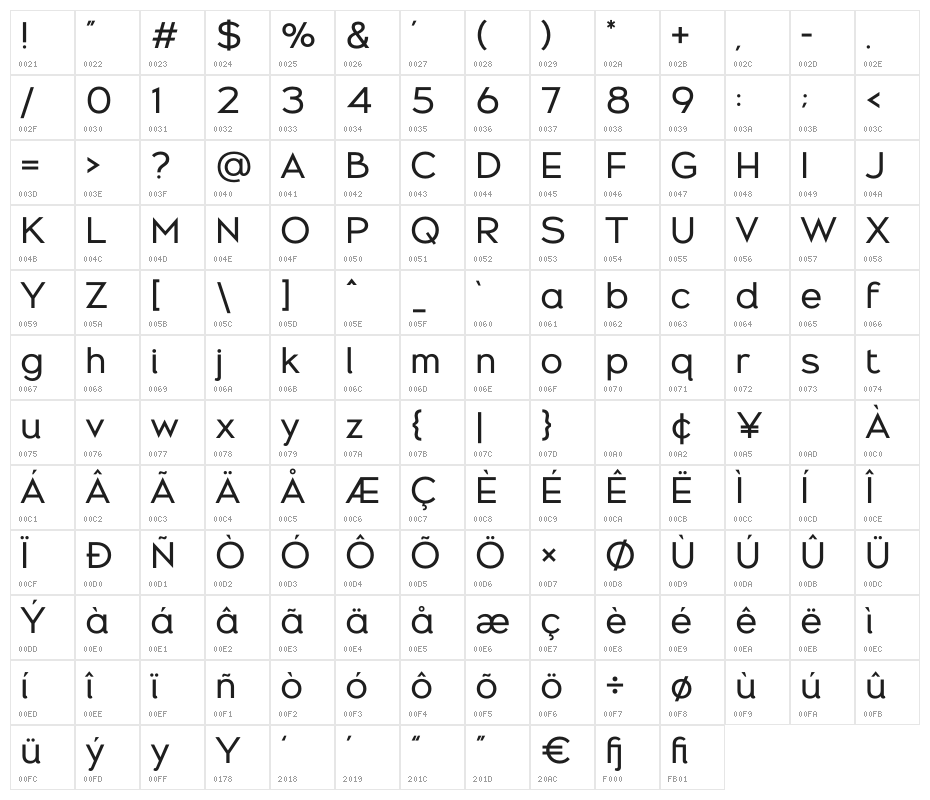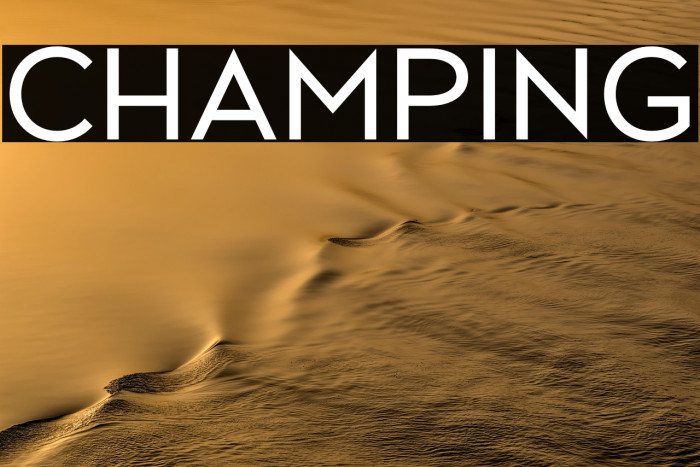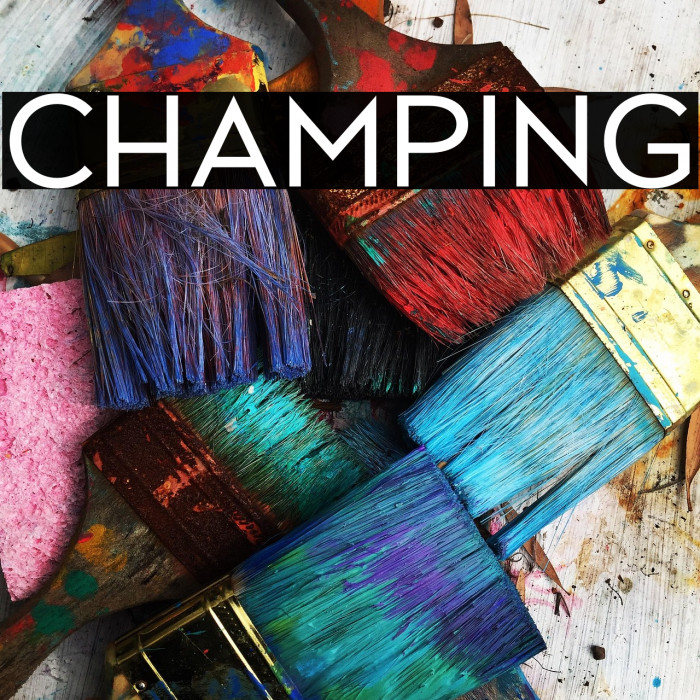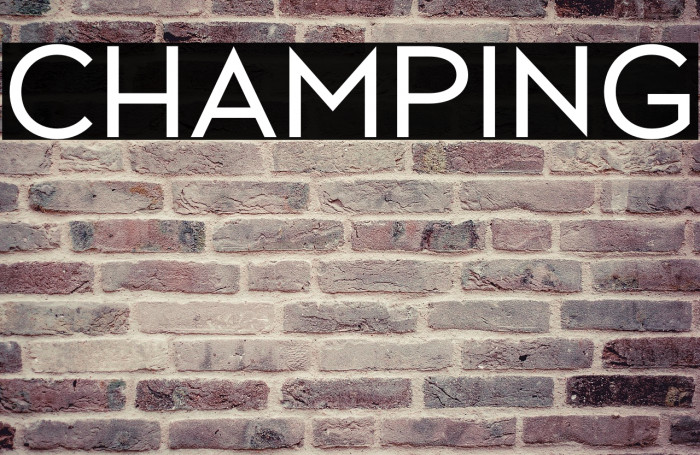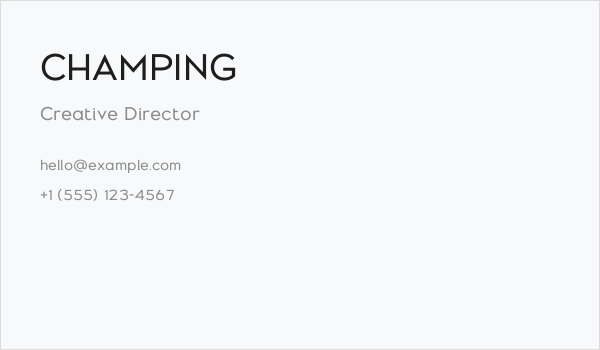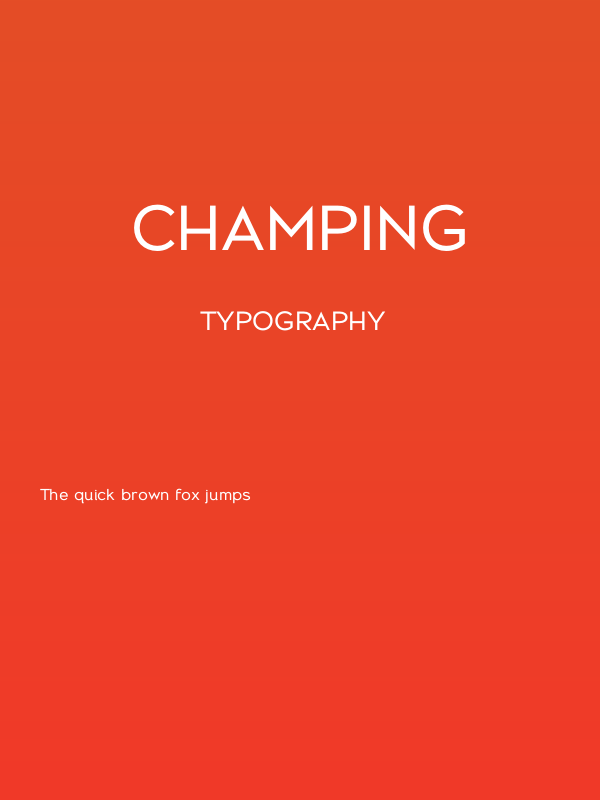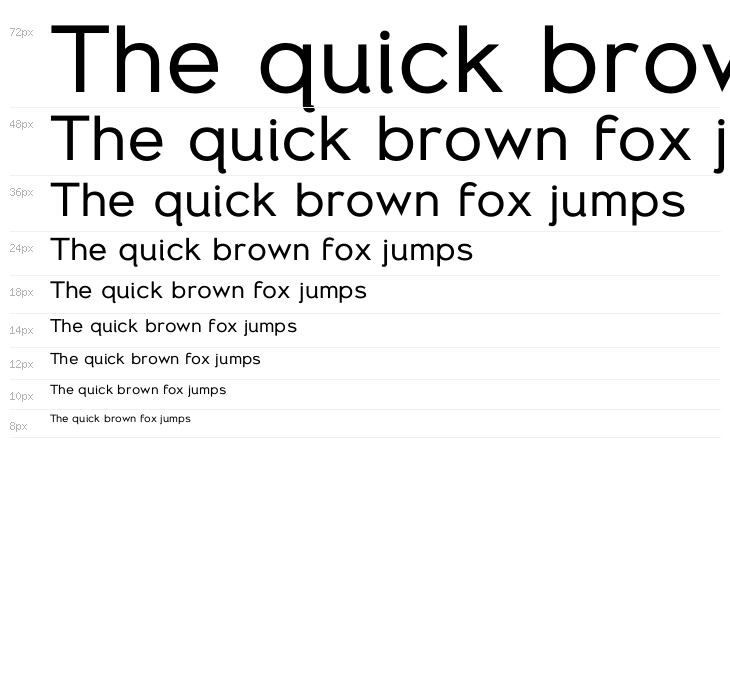
CHAMPING Font
CHAMPING Description
This font features a clean and modern sans-serif design, characterized by its geometric shapes and uniform stroke widths. The uppercase letters are bold and assertive, while the lowercase letters maintain a balanced and approachable appearance. The numerals are clear and easy to read, making them suitable for various applications. Special characters are well-defined, adding versatility to the font's usage. The overall design is minimalistic, with a focus on readability and simplicity, making it ideal for contemporary design projects.
| Use Case | Headlines, Body text, Logos |
| Proposed Projects | Ideal for branding, web design, advertising, and editorial projects where clarity and modernity are essential. |